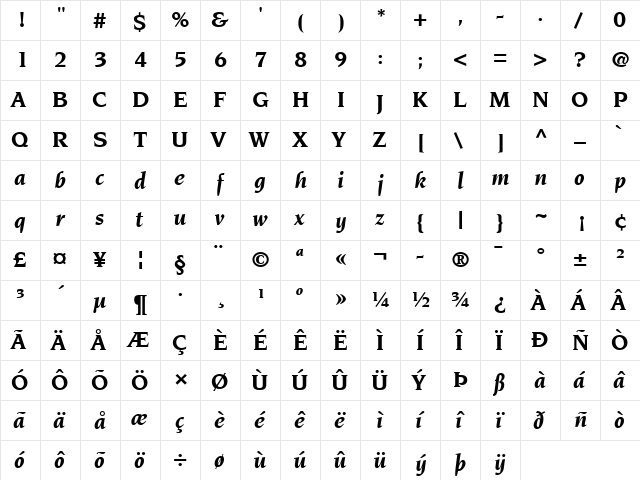
Novarese LT Book Bold Italic
Design Context for Novarese LT Book Typeface
Novarese LT Book takes a measured approach to typography — its balanced proportions and neutral character make it a reliable workhorse for both digital and print work. Its italic angle brings a sense of urgency and motion to the letterforms. The heavy weight commands attention and anchors typographic hierarchies.
Pro Tip: Try Novarese LT Book for annotation and caption copy alongside an upright companion — the contrast in angle creates a dynamic but ordered typographic system.